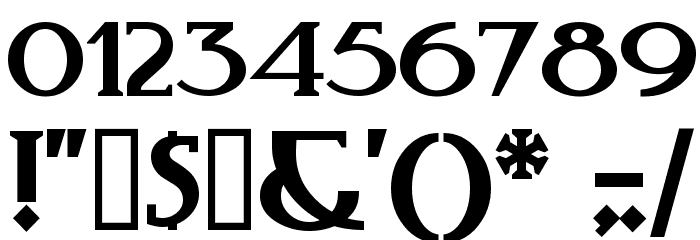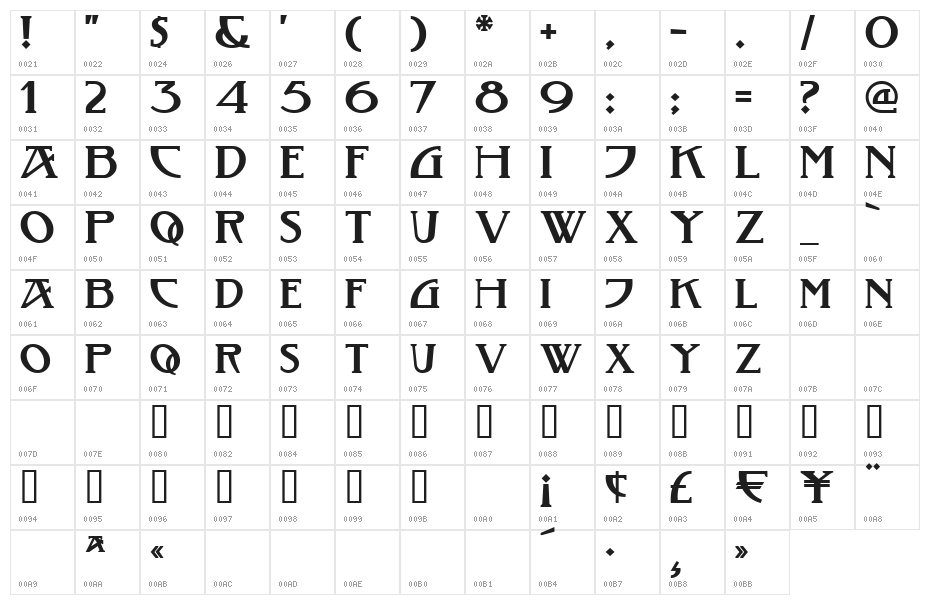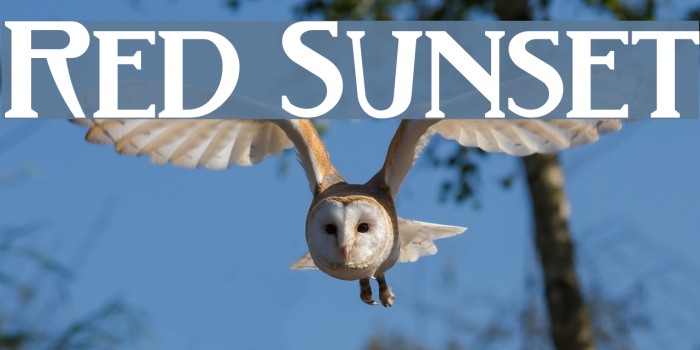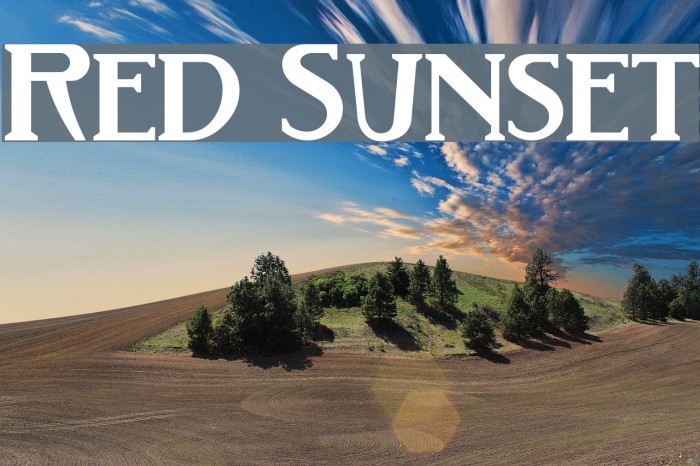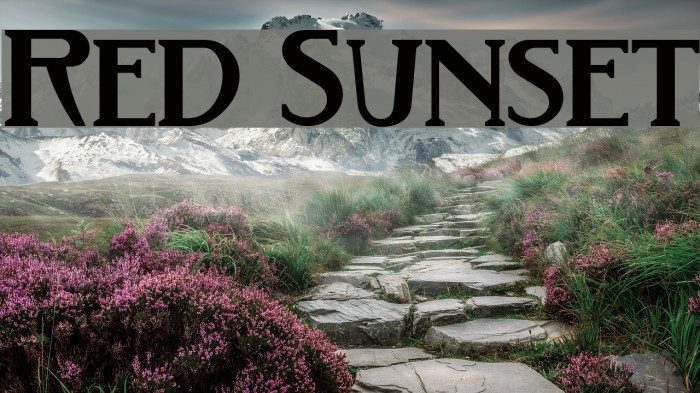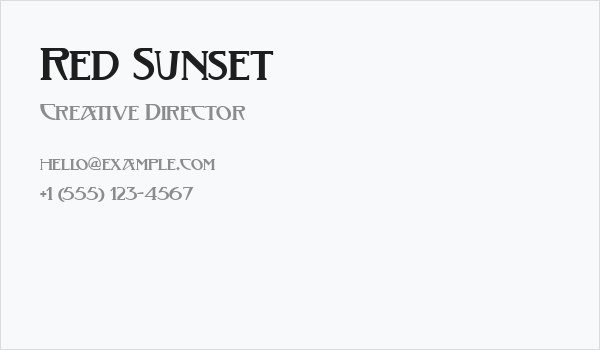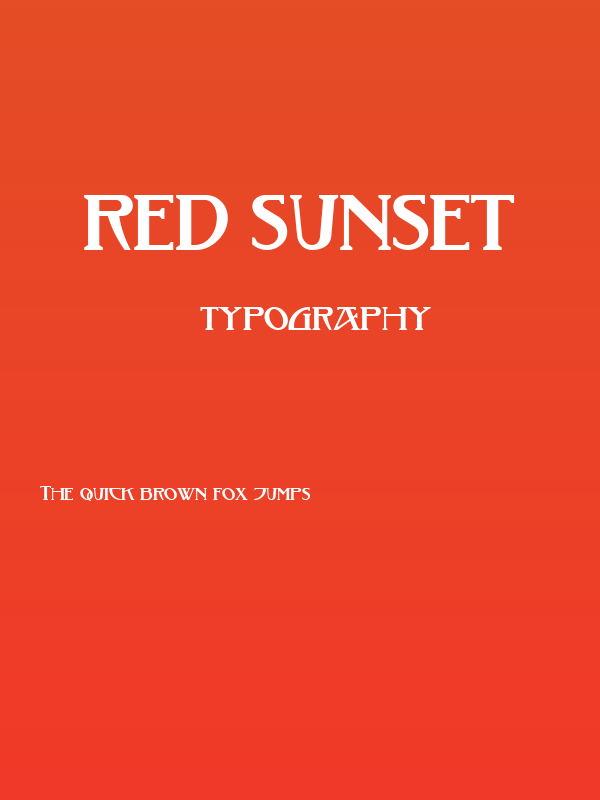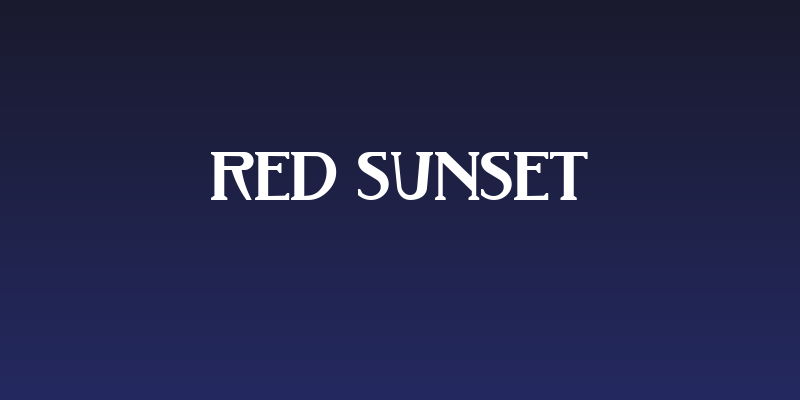
Red Sunset Font
Red Sunset Description
This font features a bold and striking design with a unique blend of geometric and angular elements. The uppercase letters exhibit a strong presence with sharp edges and distinct cutouts, creating a sense of movement and dynamism. The lowercase letters maintain this bold style, ensuring consistency throughout the typeface. Numbers are equally bold, with a modern flair that complements the overall aesthetic. Special characters are designed to match the font's bold and angular style, making them stand out effectively. This font is ideal for projects that require a strong visual impact and a modern, edgy feel.